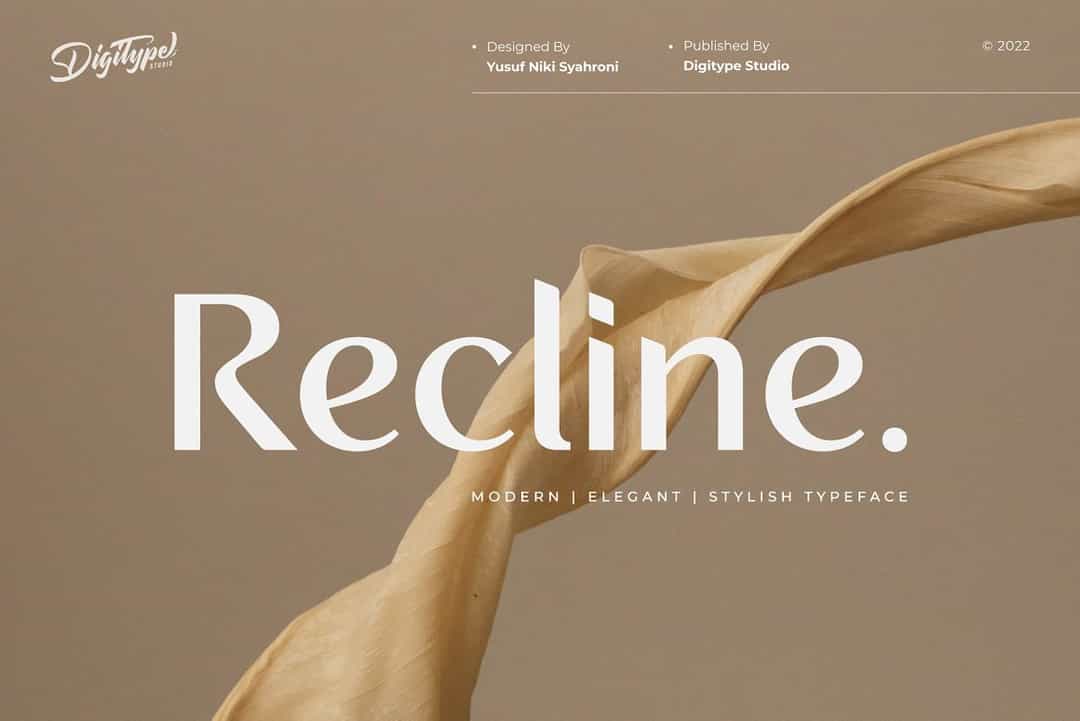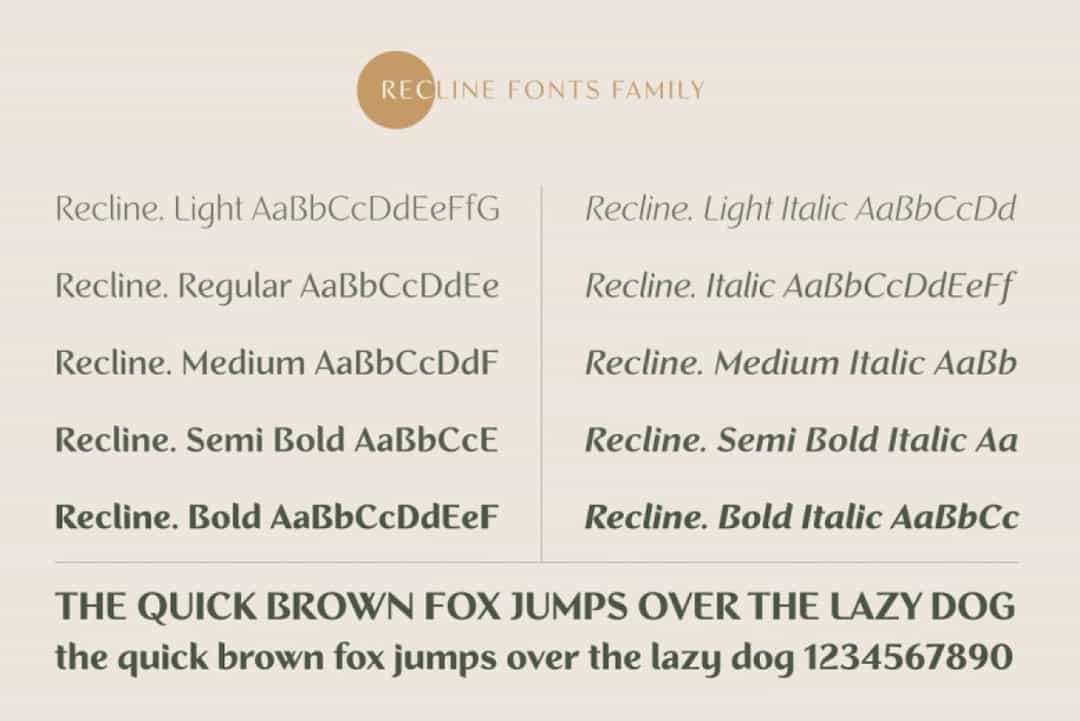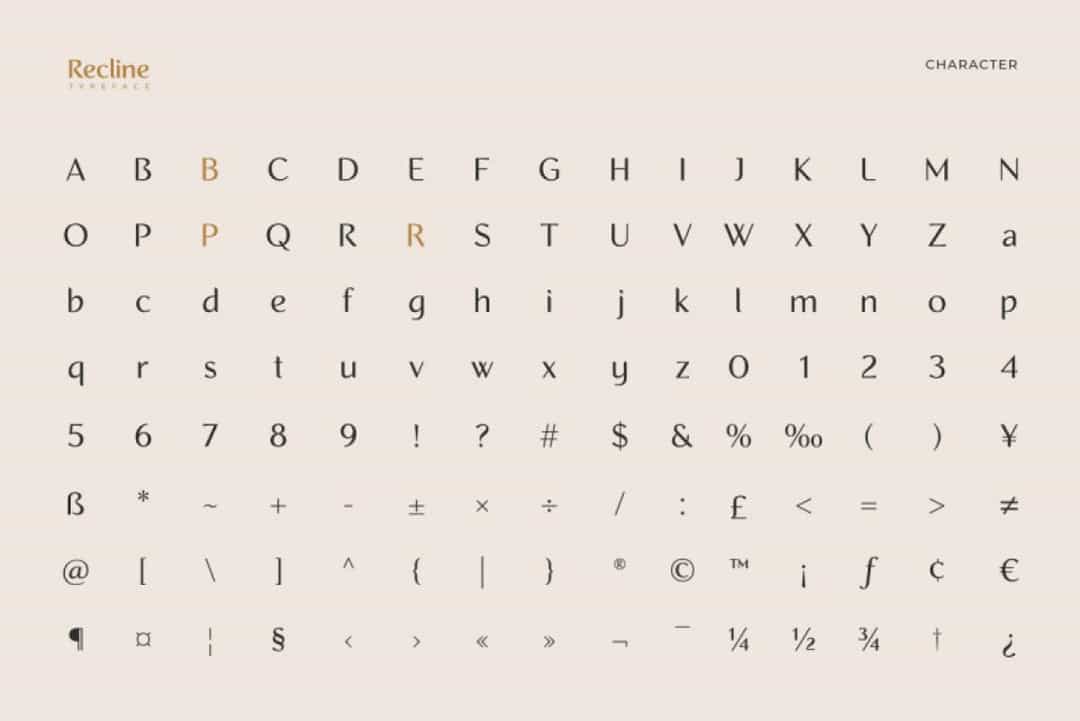
Recline font is a modern font featuring 10 weights – five straight and angled, which make it easy to adjust to suit any style. Recline is suitable for corporate identities publications, websites including magazines titles books logos business cards packaging labels product labels or any other marketing purposes.